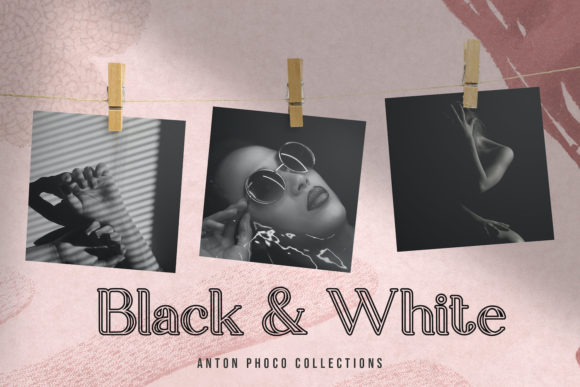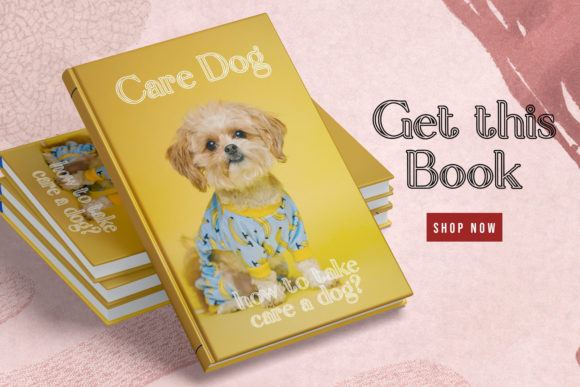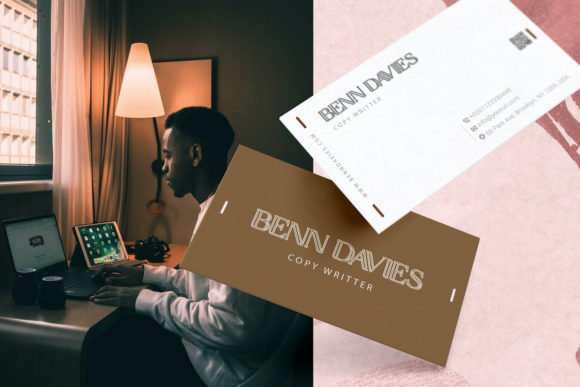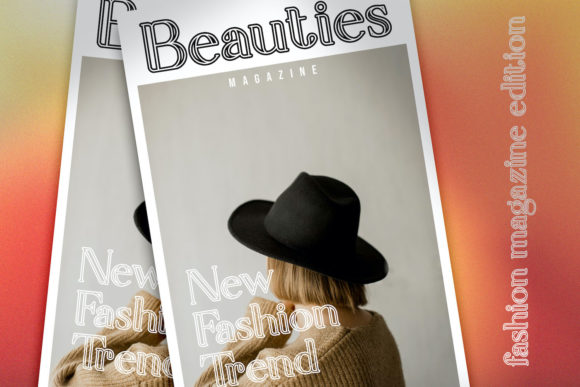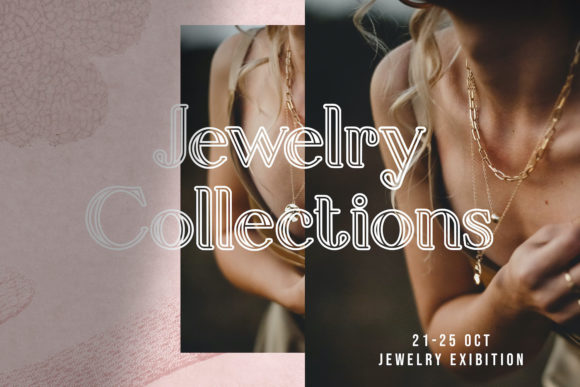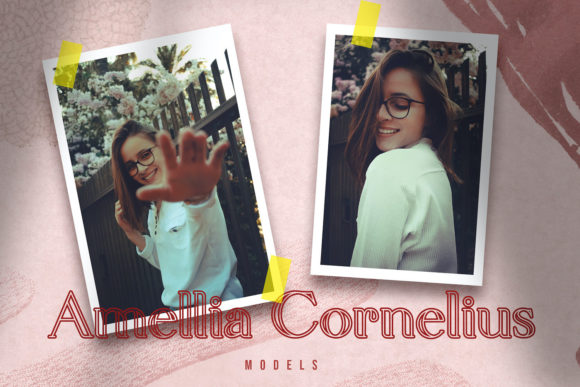
The Elegante Font: Elevate Your Designs with Style and Sophistication
Have you ever been in the middle of a design project, and suddenly, you’re stuck on finding the perfect font? I recall a particularly frustrating experience while working on a wedding invitation design. My client wanted something elegant, yet modern and playful. I scoured the internet, tried countless fonts, but nothing seemed quite right. That was until I stumbled upon the Elegante font. This unique, stylish, and modern serif font has been a game-changer for me, and I’m excited to share its wonders with you! ✨
An Honest Review of Elegante
- ✨ Unique and distinctive design that stands out in any context
- ✅ Excellent for both digital and print projects
- 👍 Highly legible, even at smaller font sizes
- 💥 Supports multiple languages and OpenType features
While Elegante is an exceptional font, there are a few minor things to consider: 🤔
- ⚠️ Some characters may not work well with specific paragraph or text alignments
- ⚠️ Limited availability of condensed or extended versions
- Explore the font’s OpenType features, such as stylistic alternates and glyphs, to add more creativity to your design
Elegante supports OpenType features, which allow you to access additional glyphs and stylistic alternates. To access these features:
The Backstory of Elegante
Elegante was designed with the intention of creating a modern, yet sophisticated font that would cater to creative professionals. The designer aimed to craft a typeface that would be both elegant and playful, making it perfect for a wide range of applications. While the actual design process remains a mystery, it’s clear that Elegante has been well-received by the design community. 💫
Q: What makes Elegante unique?
A: Elegante’s distinctive design, combining modern and classic elements, sets it apart from other serif fonts.
Q: Does Elegante support OpenType features?
A: Yes, Elegante supports OpenType features, including stylistic alternates and glyphs.